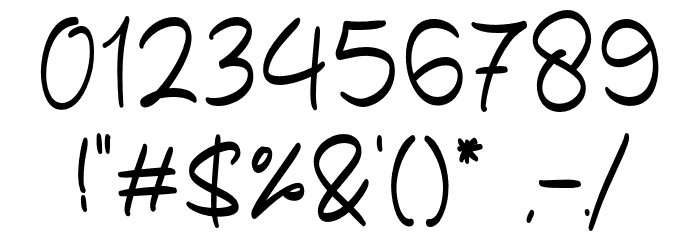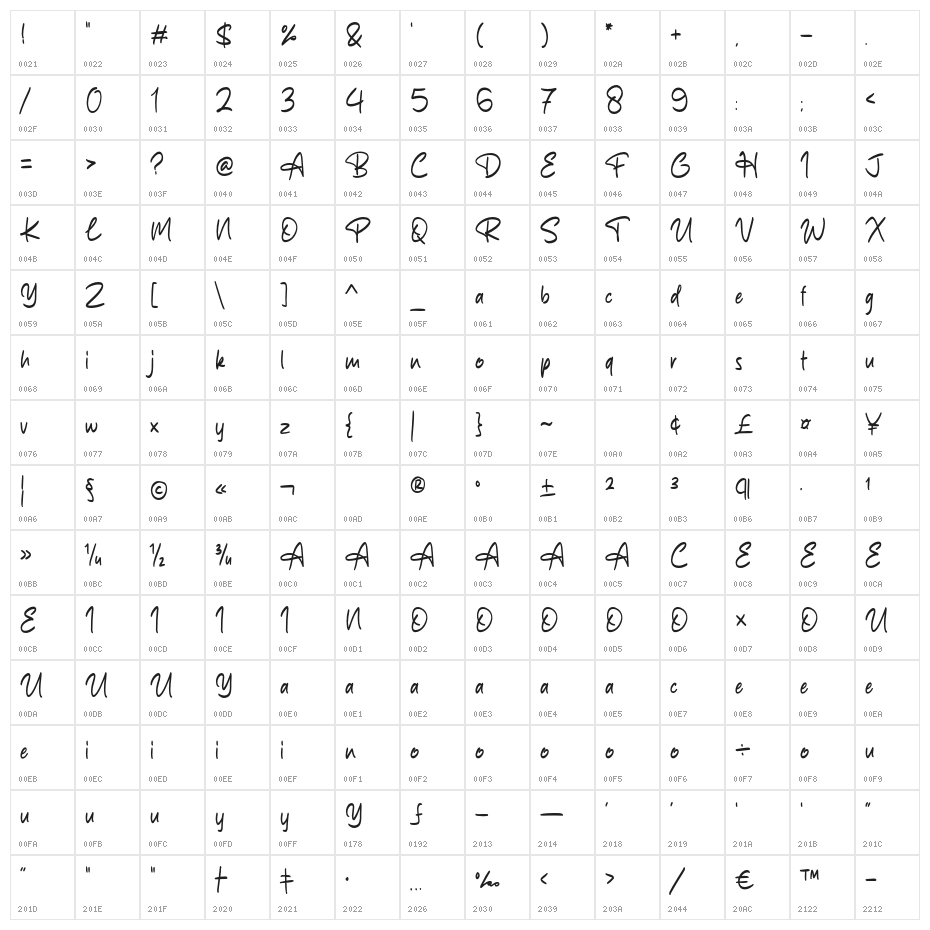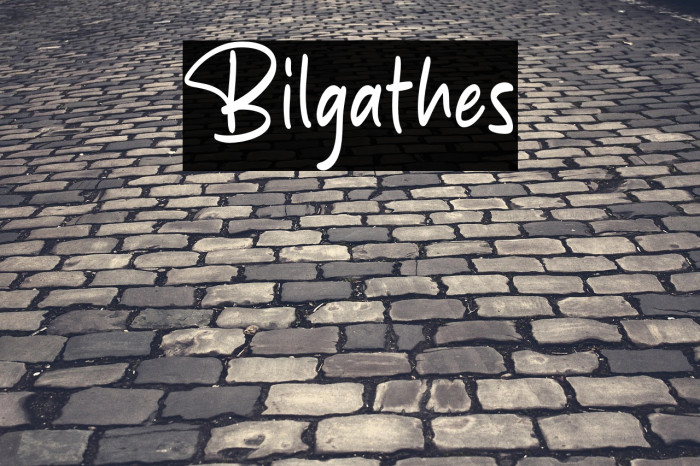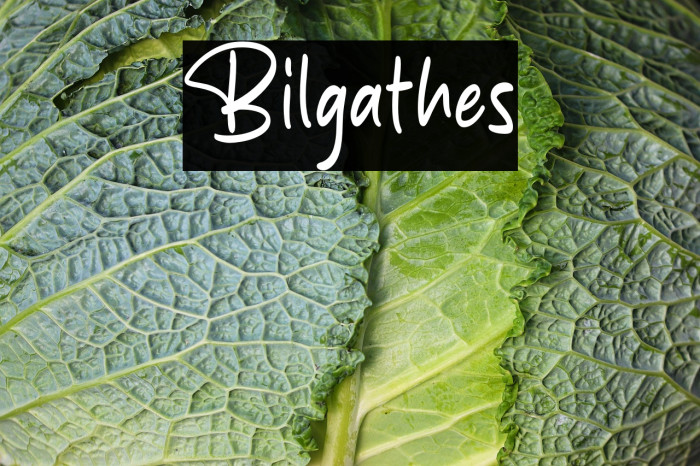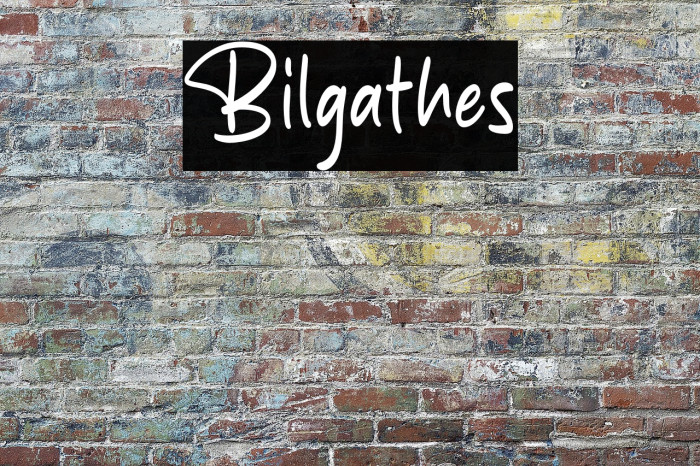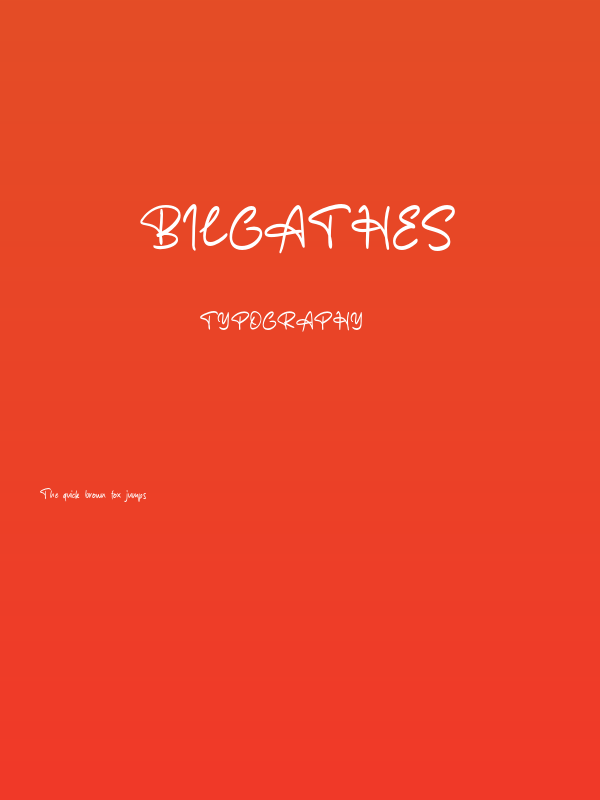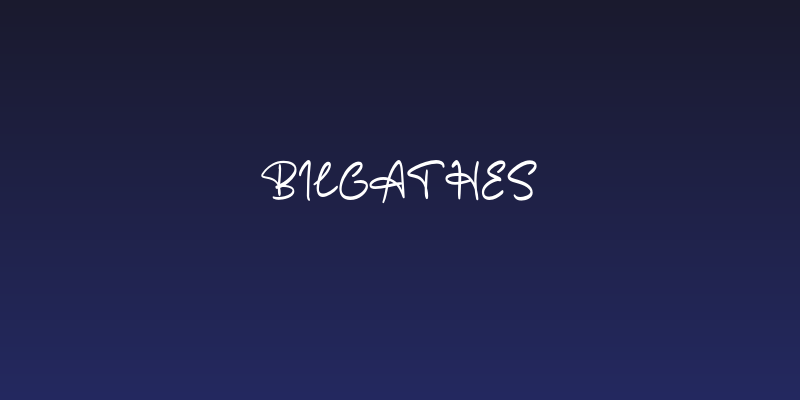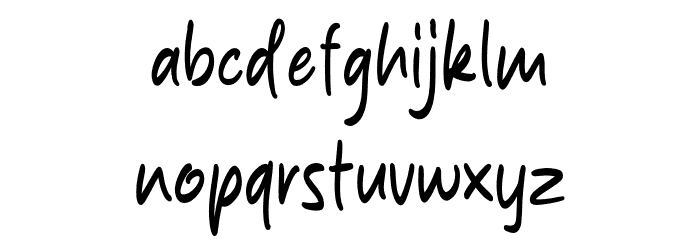
Bilgathes Font
Bilgathes Description
This font exudes a casual and playful handwritten style, characterized by its fluid and dynamic strokes. The letters are slightly slanted, giving a sense of movement and energy. The uppercase and lowercase characters maintain a consistent style, with rounded edges and smooth curves that enhance its approachable and friendly appearance. The numerals and special characters are crafted with the same attention to detail, ensuring uniformity across the entire set. This font's informal nature makes it ideal for projects that require a personal touch, such as invitations, greeting cards, or creative branding.
| Proposed Projects | Ideal for invitations, greeting cards, creative branding, and personal projects. |